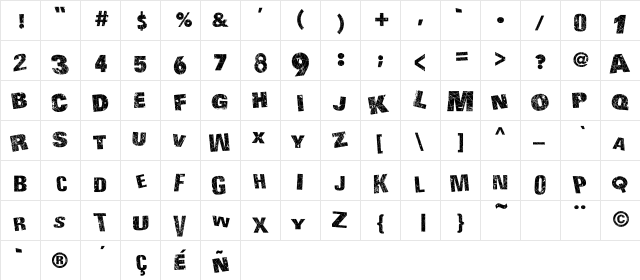
ACTION OF THE TIME Regular
Design Context for ACTION OF THE TIME Typeface
ACTION OF THE TIME is a composed and adaptable typeface that performs quietly and consistently across a wide range of design contexts.